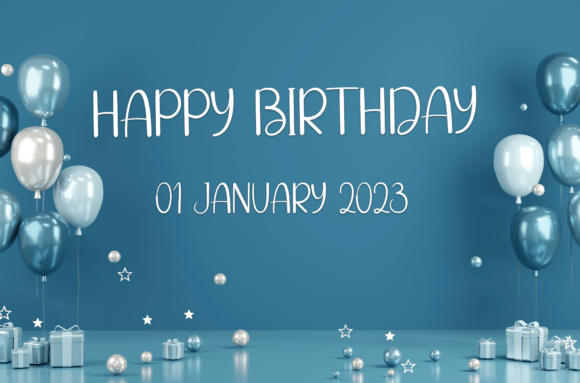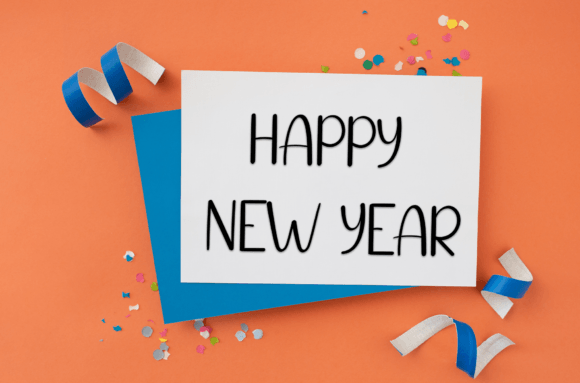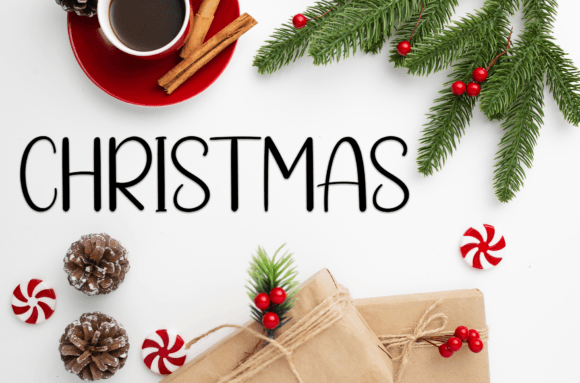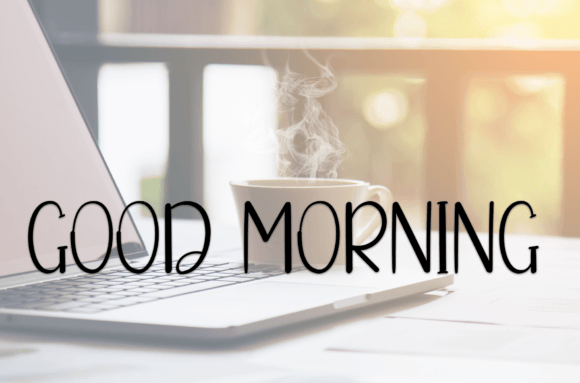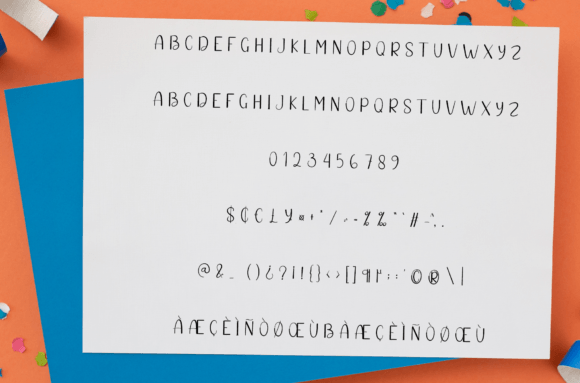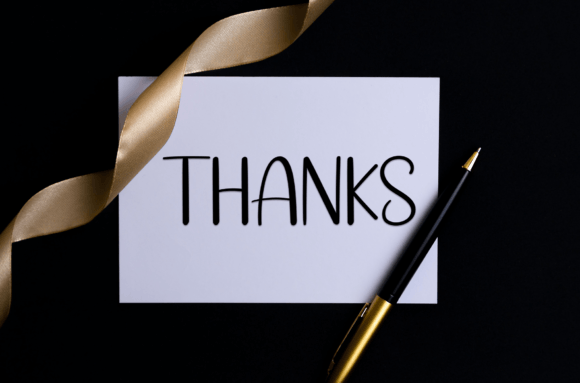
Introducing Five Minutes Font: The Sweet and Friendly Handwritten Font for Your Design Needs
Are you a designer or crafter looking for a font that can add a touch of warmth and personality to your designs? Look no further than Five Minutes Font, a sweet and friendly handwritten font that’s perfect for creating beautiful wedding invitations, cards, and other designs that require a lovely touch.
What is Five Minutes Font?
Five Minutes Font is a handwritten font that’s designed to be fun and relaxed, making it ideal for a wide range of design projects. Its sweet and friendly style is sure to capture the attention of your audience and leave a lasting impression. Whether you’re designing a wedding invitation, a greeting card, or a social media post, Five Minutes Font is the perfect choice.
Key Features of Five Minutes Font
- Handwritten style: Five Minutes Font has a beautiful handwritten style that’s perfect for creating personal and heartfelt designs.
- Sweet and friendly: The font’s sweet and friendly style makes it ideal for designs that require a touch of warmth and personality.
- Fun and relaxed: Five Minutes Font is designed to be fun and relaxed, making it perfect for designs that require a playful touch.
- Versatile: The font is versatile and can be used for a wide range of design projects, from wedding invitations to social media posts.
Why Choose Five Minutes Font?
There are many reasons why you should choose Five Minutes Font for your design needs. Here are a few:
- Easy to read: Five Minutes Font is easy to read, making it perfect for designs that require a clear and concise message.
- Unique style: The font’s unique style will set your designs apart from the rest and make them more memorable.
- Time-saving: With Five Minutes Font, you can create beautiful designs in no time, saving you time and effort.
- High-quality: The font is high-quality and will make your designs look professional and polished.
How to Use Five Minutes Font
Using Five Minutes Font is easy. Here are a few tips to get you started:
- Pair it with other fonts: Five Minutes Font can be paired with other fonts to create a unique and interesting design.
- Use it for headings and body text: The font can be used for both headings and body text, making it versatile and easy to use.
- Experiment with different colors: Five Minutes Font looks great in a variety of colors, so don’t be afraid to experiment and find the perfect color for your design.
Design Ideas Using Five Minutes Font
- Wedding invitations: Five Minutes Font is perfect for creating beautiful and personalized wedding invitations.
- Greeting cards: The font can be used to create heartfelt and personalized greeting cards for any occasion.
- Social media posts: Five Minutes Font can be used to create eye-catching and engaging social media posts that will capture the attention of your audience.
- Blog posts: The font can be used to create beautiful and easy-to-read blog posts that will make your content stand out.